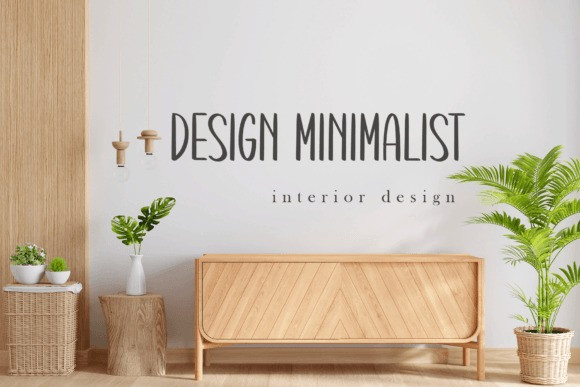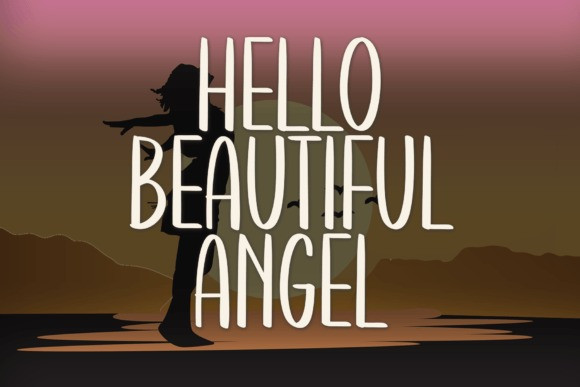
Hello Beautiful Angel Font
Hello Beautiful Angel Font is a fancy handwritten font that will give you extra creative work. This font is suitable for logo design, social media, movie titles, and book titles. Make stunning work with Hello Beautiful Angel font.